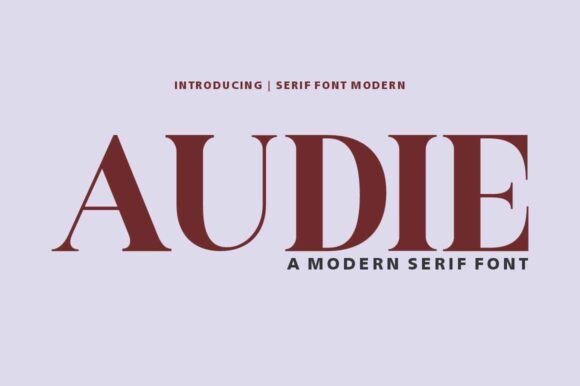
The Audie Font: A Modern Serif Powerhouse for Your Designs
I’ll never forget the time I was working on a project for a client who needed a bold, eye-catching font for their branding campaign. I had spent hours scouring the internet for the perfect font, but nothing seemed quite right. That was until I stumbled upon the Audie font. With its sleek, modern serif design, I knew I had found the one. In this article, I’ll share my experience with the Audie font, its features, and how to make the most of it in your designs.
A Personal Review of Audie Font
What I Love About Audie Font
- ✨ Versatility: Audie is a modern serif font designed for strong headlines, making it perfect for a wide range of applications, from banners and posters to logos and brand identities.
- ✅ Legibility: The font’s clear and concise design ensures that your text is easy to read, even at smaller sizes.
- 💡 OpenType Features: Audie font comes with a range of OpenType features, including stylistic alternates, ligatures, and glyphs, which can add an extra layer of creativity to your designs.
While Audie font is an excellent choice for many design projects, there are a few things to keep in mind:
- ⚠️ Limited use for body text: Due to its bold and modern design, Audie font may not be the best choice for body text, especially for longer passages.
- 🤔 Some characters may require adjustment: As with any font, some characters may require adjustment to ensure they fit perfectly with the rest of the text.
The Story Behind Audie Font
Audie font was designed with the modern designer in mind. Its creator wanted to craft a font that was both bold and elegant, perfect for making a statement in any design. With its sleek lines and refined features, Audie font is sure to become a staple in any designer’s toolkit.
Q: What is Audie font best used for?
A: Audie font is best used for strong headlines, logos, and brand identities. Its bold and modern design makes it perfect for making a statement in any design.
Q: Can I use Audie font for body text?
A: While Audie font can be used for body text, it may not be the best choice due to its bold and modern design. It’s better suited for headlines and titles.
Q: Is Audie font suitable for digital designs?
A: Yes, Audie font is perfect for digital designs, including websites, social media graphics, and more. Its clear and concise design ensures that your text is easy to read on any device.